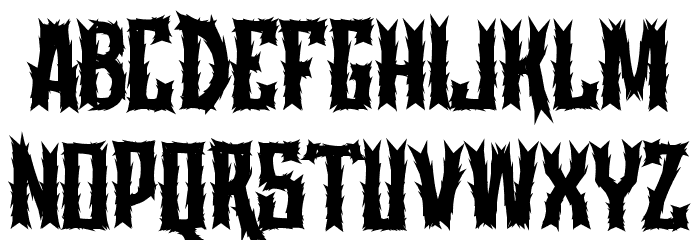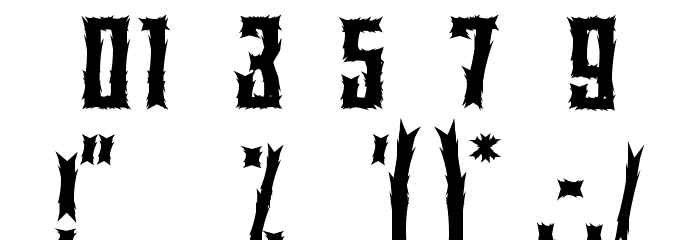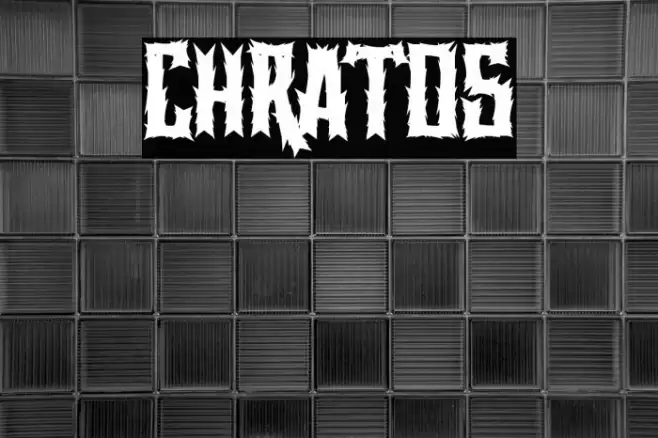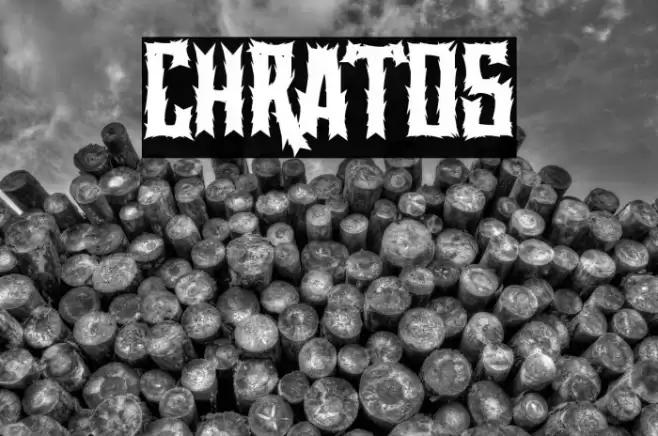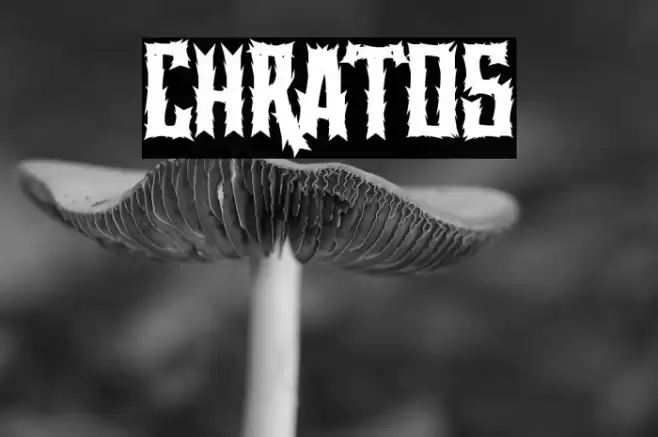
Chratos Font
This font features a bold, jagged design that gives it a fierce and aggressive appearance. The characters are heavily stylized with sharp, thorn-like edges that create a sense of movement and energy. The uppercase and lowercase letters maintain a consistent style, with the uppercase being slightly more pronounced. Numbers and special characters follow the same aesthetic, ensuring a cohesive look across all text. This font is ideal for projects that require a strong, impactful visual presence, such as posters, album covers, or branding for edgy or alternative products.
A bold, jagged font with sharp, thorn-like edges for a fierce look.
- Font: Chratos
- Proposed Projects: Ideal for posters, album covers, branding for edgy products, or Halloween-themed designs.